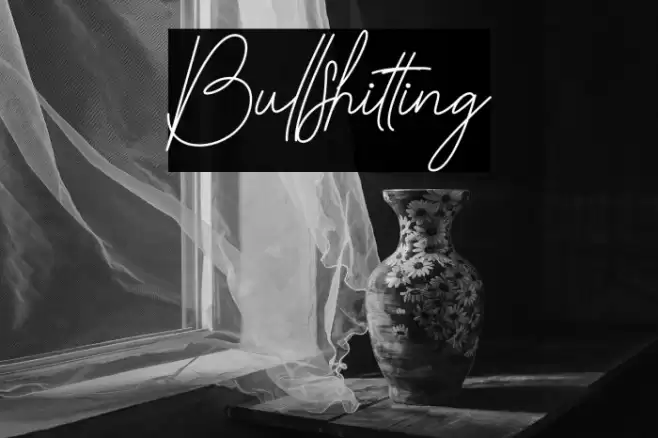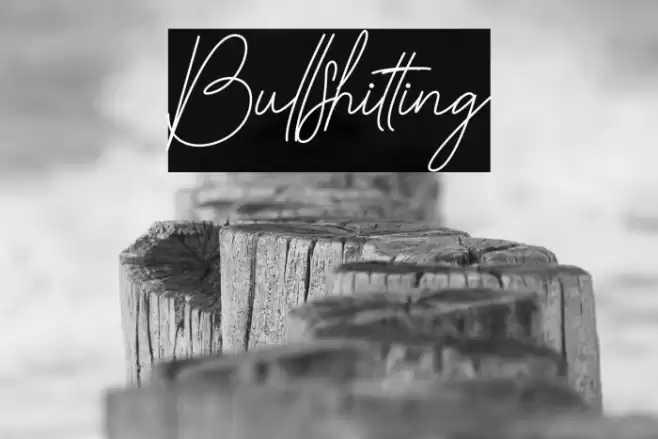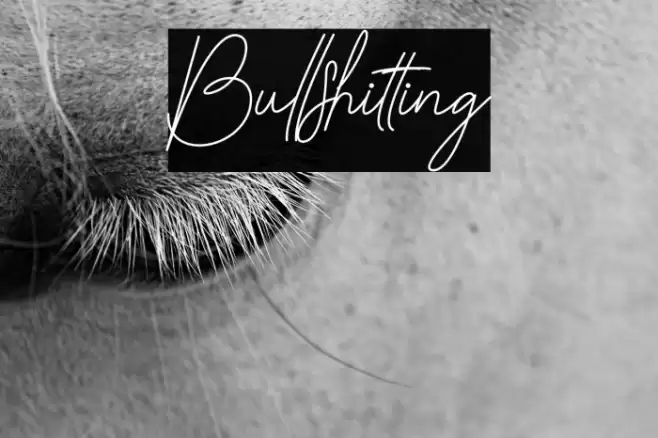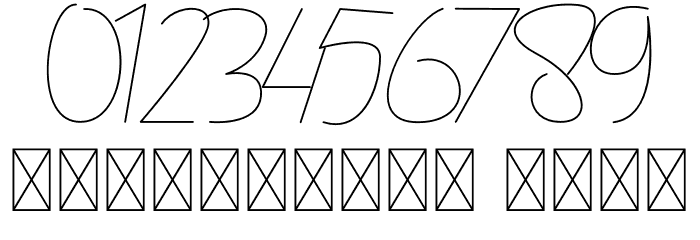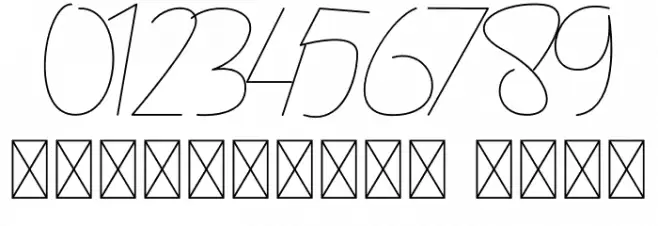
Bullshitting Font
Bullshitting Description
This font features a delicate, handwritten style with a flowing, cursive appearance. The uppercase letters are tall and slender, with elegant loops and curves that give them a sophisticated look. The lowercase letters maintain a consistent flow, enhancing the script-like quality. Numbers are styled to match the letters, with a similar thin and elongated form. The overall design is airy and light, making it suitable for projects that require a touch of elegance and personal flair. The special characters are consistent with the font's delicate style, ensuring a cohesive look across all text elements.
A delicate, handwritten cursive font with elegant loops and curves from Regular fonts.
- Proposed Projects: Ideal for wedding invitations, personal branding, greeting cards, and elegant stationery.
- Weight: Light
- Overall Style: Elegant, Personal
- Use Case: Invitations, Personal branding, Stationery